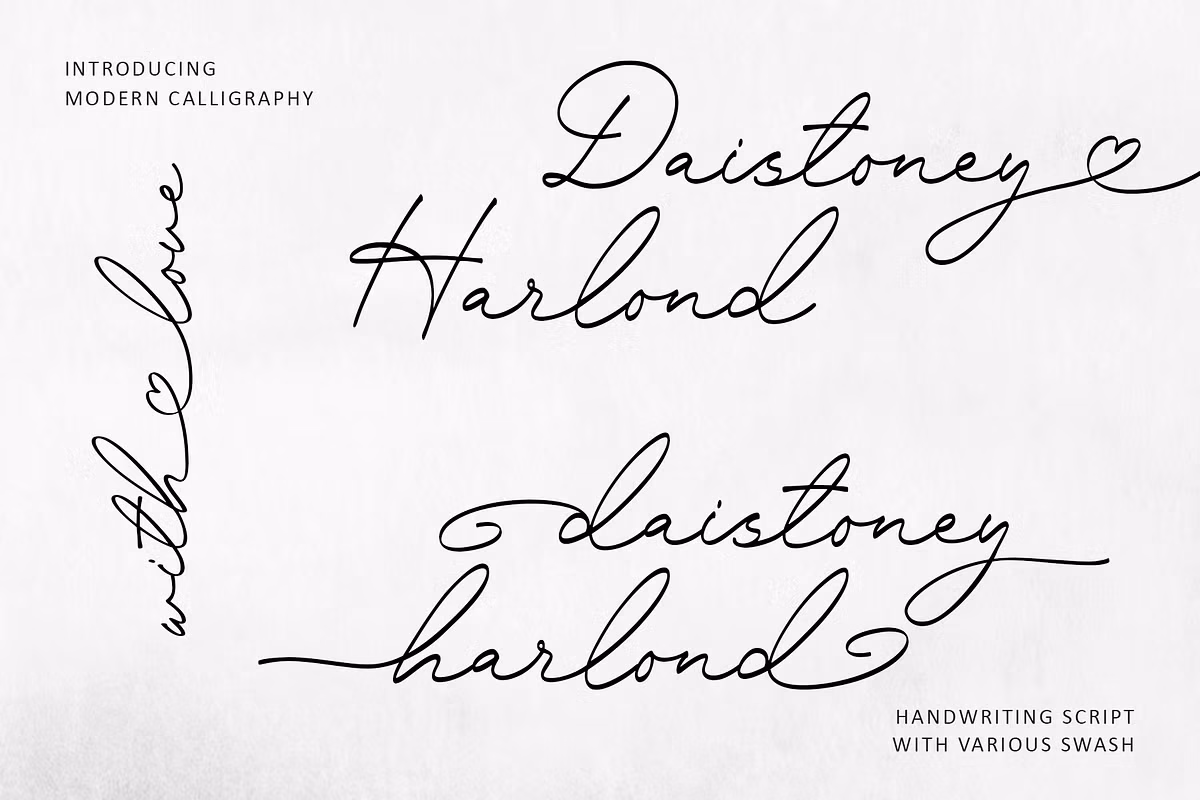
DaistoneyHarlond - Swash Calligraphy Font Free Download is a stunning and elegant script typeface that combines the beauty of calligraphy with intricate swashes and flourishes. Perfect for wedding invitations, greeting cards, logos, and other romantic or high-end designs, this font adds a sophisticated and personal touch to any project. The flowing curves and stylish swashes give DaistoneyHarlond a unique, artistic flair that makes it ideal for creative branding, social media content, and more. Whether you're designing for a luxury event, crafting personalized gifts, or working on a creative campaign, DaistoneyHarlond - Swash Calligraphy Font Free Download allows you to test its refined beauty in personal projects before purchasing a commercial license. Elevate your designs with the timeless elegance and charm of this beautifully crafted calligraphy font.